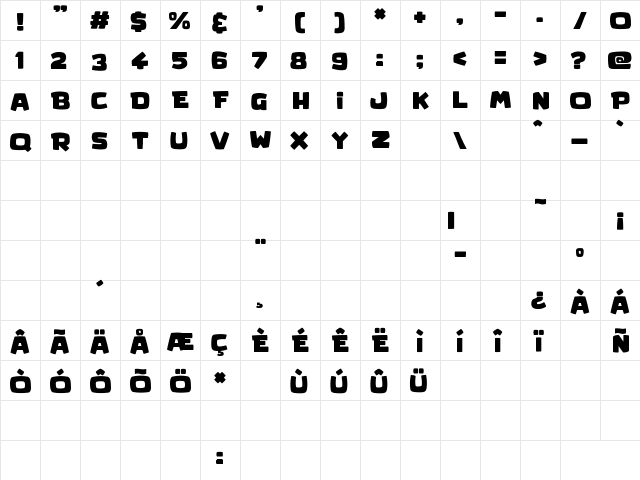
Kid Games Regular
| Designer | IMAGEX |
Design Context for Kid Games Typeface
Kid Games is a composed and adaptable typeface that performs quietly and consistently across a wide range of design contexts.